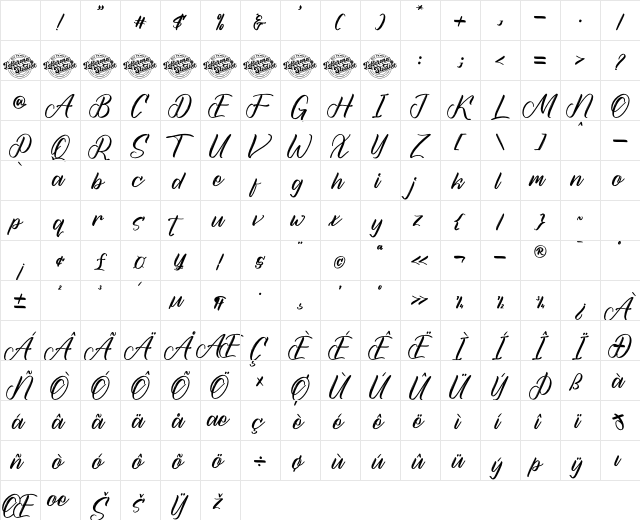
Complete Alldegha Ramture DEMO VERSION Regular glyph index. Displaying only characters natively supported by Alldegha Ramture DEMO VERSION Regular font.
Alldegha Ramture DEMO VERSION is a composed and adaptable typeface that performs quietly and consistently across a wide range of design contexts.